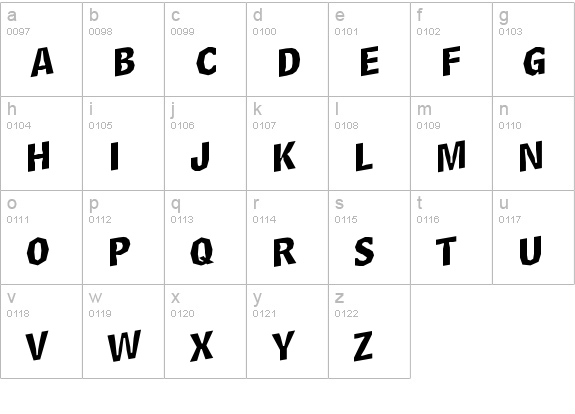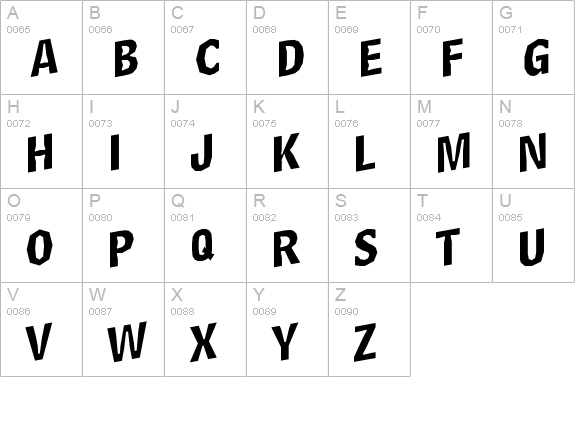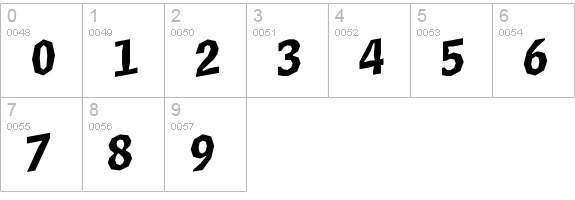
Delinquent Caps Skewd Font Details
Delinquent Caps Skewd font is a rebellious and edgy typeface that exudes a sense of defiance and nonconformity. With its skewed and distorted letterforms, this font adds a bold and dynamic touch to any design project. The irregular angles and sharp edges give it a unique and eye-catching appearance, perfect for making a statement. What makes Delinquent Caps Skewd font even more appealing is that it is available for free download at FontsMarket.com. This means that you can easily access this striking font and incorporate it into your creative work without any cost. Whether you're looking to add a touch of attitude to your posters, flyers, or social media graphics, Delinquent Caps Skewd font is a great choice for those who want to stand out from the crowd.